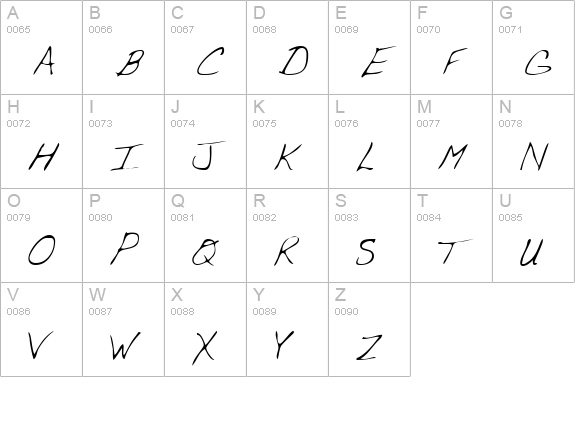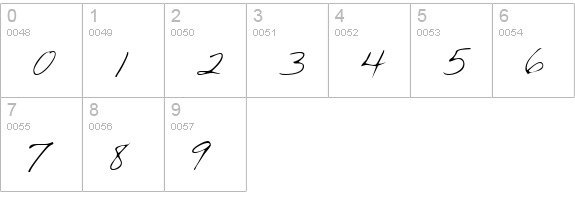
ErinsHand Regular Font Details
ErinsHand Regular is the standard, neutral variant in the ErinsHand typeface family \xE2\x80\x94 well suited to general body text, paragraphs, and standard typographic work.
ErinsHand Regular font is a charming and versatile typeface that exudes a sense of whimsy and playfulness. With its hand-drawn appearance and natural flow, this font is perfect for adding a personal touch to a wide range of design projects. Whether you're working on greeting cards, invitations, posters, or branding materials, ErinsHand Regular font will bring a unique and creative flair to your work. The best part? ErinsHand Regular font is available for free download at FontsMarket.com. Simply visit the website to access this delightful font and start incorporating it into your designs today. Embrace the creativity and individuality that ErinsHand Regular font offers, and watch your projects come to life with its distinct character and charm.